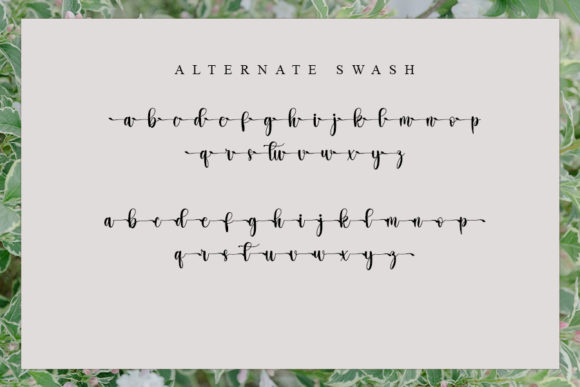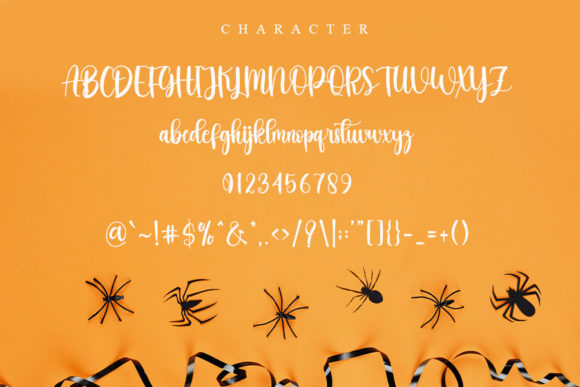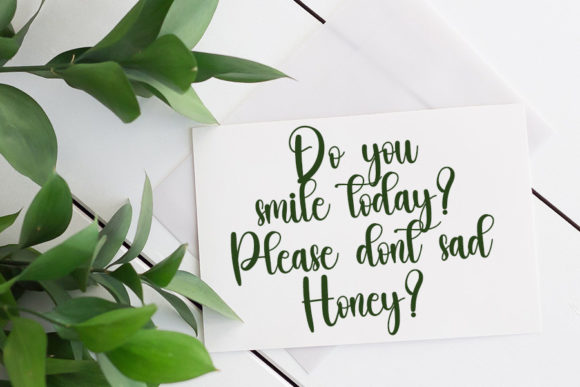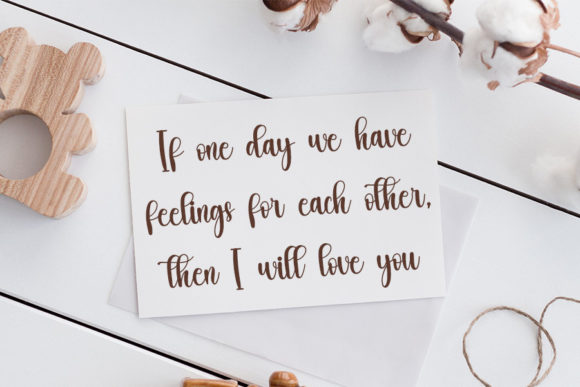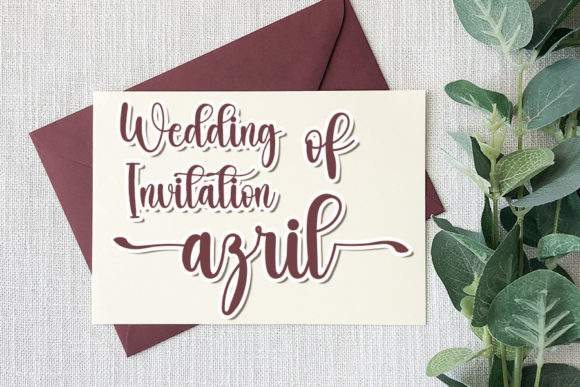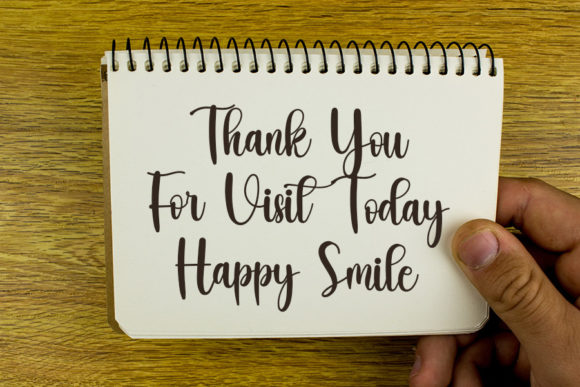
Introducing Heart Font: The Perfect Addition to Your Design Arsenal
Are you tired of using the same old fonts in your designs? Look no further than Heart Font, a gorgeous and bold handwritten font that’s sure to take your work to the next level. With its confident and dynamic vibe, Heart Font is the perfect choice for designers and crafters looking to add a touch of nostalgia and personality to their projects.
What Makes Heart Font So Special?
Heart Font is more than just a pretty face – it’s a versatile and highly functional font that’s designed to make your designs stand out. Here are just a few of the features that make Heart Font so special:
- PUA Encoding: Heart Font is PUA (Private Use Area) encoded, which means that you can access all of the amazing glyphs and ligatures with ease. This makes it easy to add unique and creative touches to your designs, without having to worry about complicated coding or technical issues.
- Bold and Confident: Heart Font has a bold and confident vibe that’s perfect for making a statement. Whether you’re designing a logo, a poster, or a social media graphic, Heart Font is sure to grab attention and leave a lasting impression.
- Nostalgic Character: Heart Font has a distinctly nostalgic feel that’s reminiscent of classic handwritten fonts from the past. This makes it perfect for designers and crafters who want to add a touch of vintage charm to their work.
- Dynamic and Versatile: Heart Font is a highly versatile font that can be used in a wide range of design applications. Whether you’re designing a formal business card or a playful social media graphic, Heart Font is sure to adapt to your needs.
Why Designers and Crafters Love Heart Font
Heart Font has quickly become a favorite among designers and crafters – and it’s easy to see why. Here are just a few of the reasons why Heart Font is a top choice:
- Unique and Creative: Heart Font is a unique and creative font that’s sure to set your designs apart from the crowd.
- Easily Readable: Despite its bold and dynamic vibe, Heart Font is still highly readable – making it perfect for use in a wide range of design applications.
- Highly Versatile: Heart Font can be used in a wide range of design applications, from formal business cards to playful social media graphics.